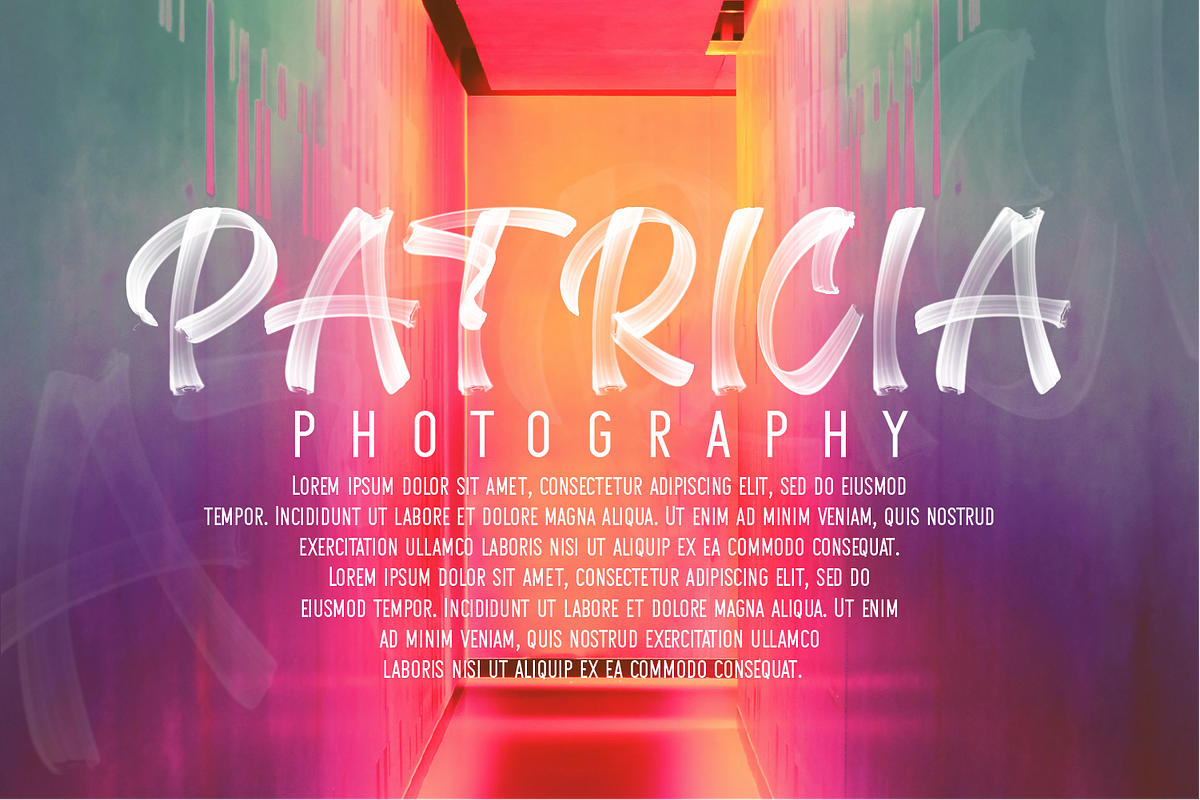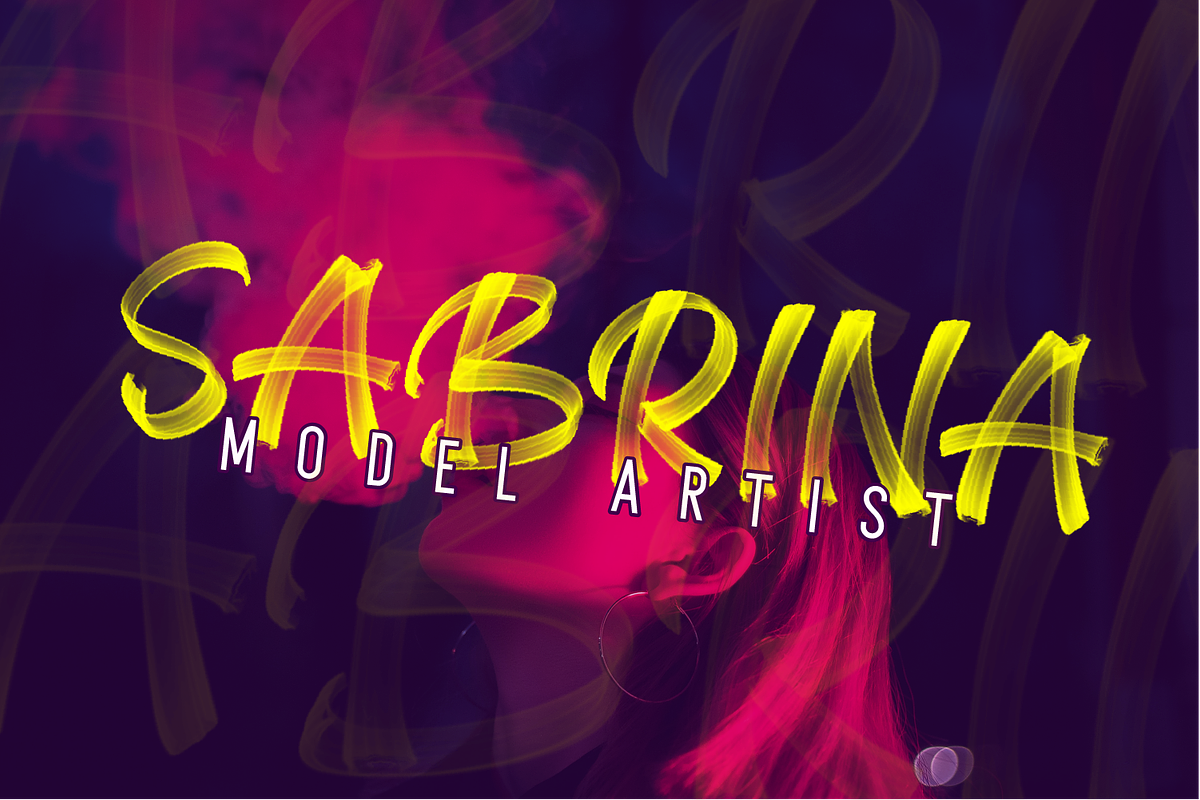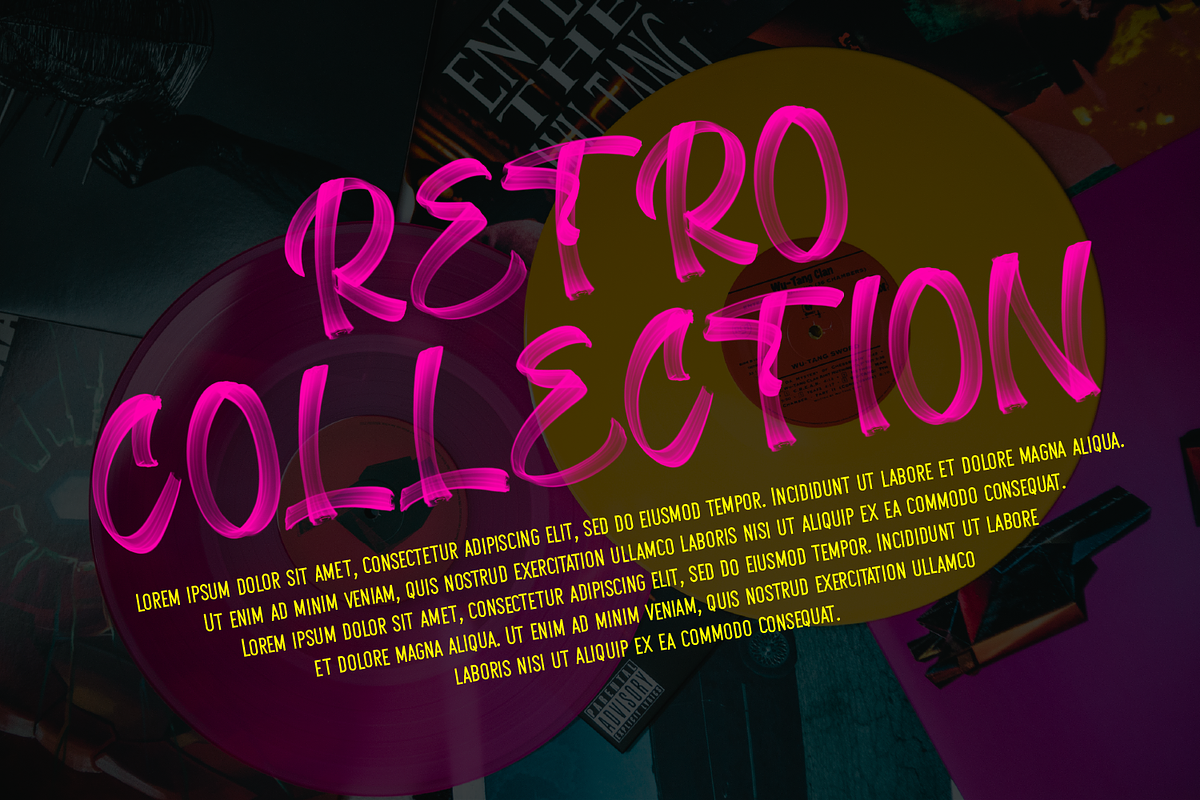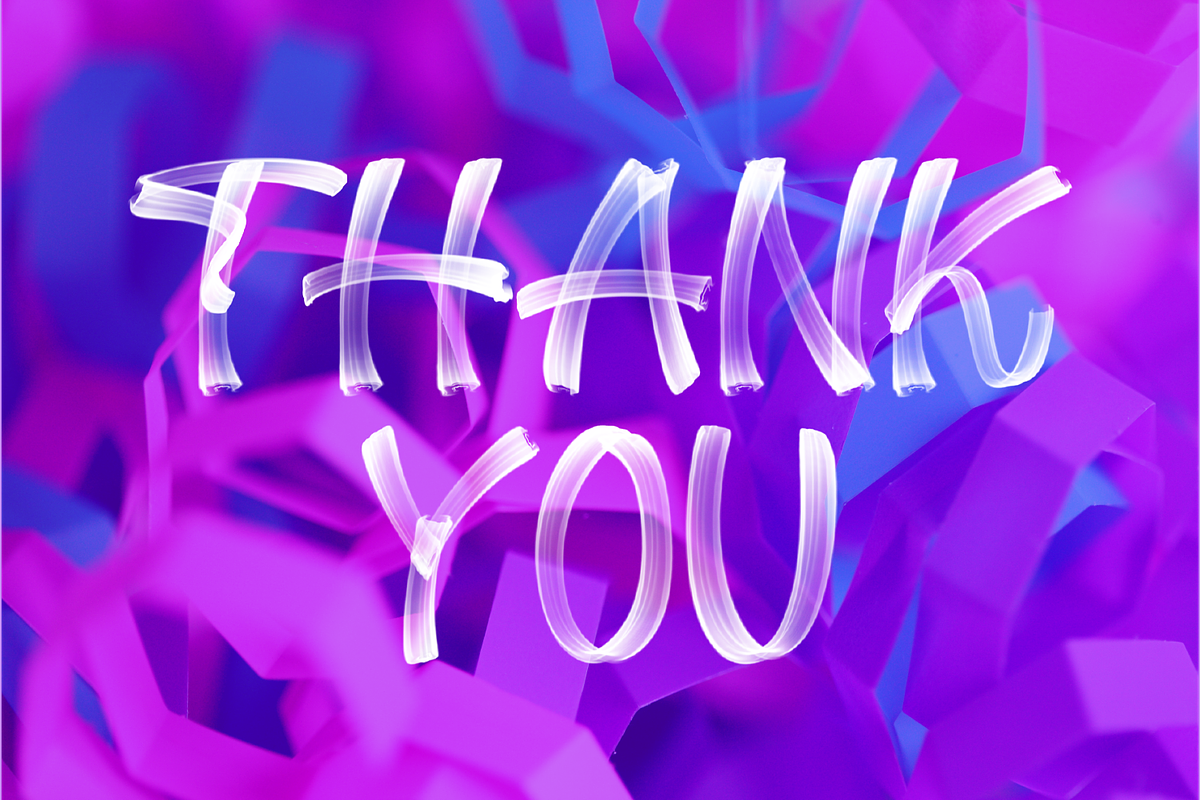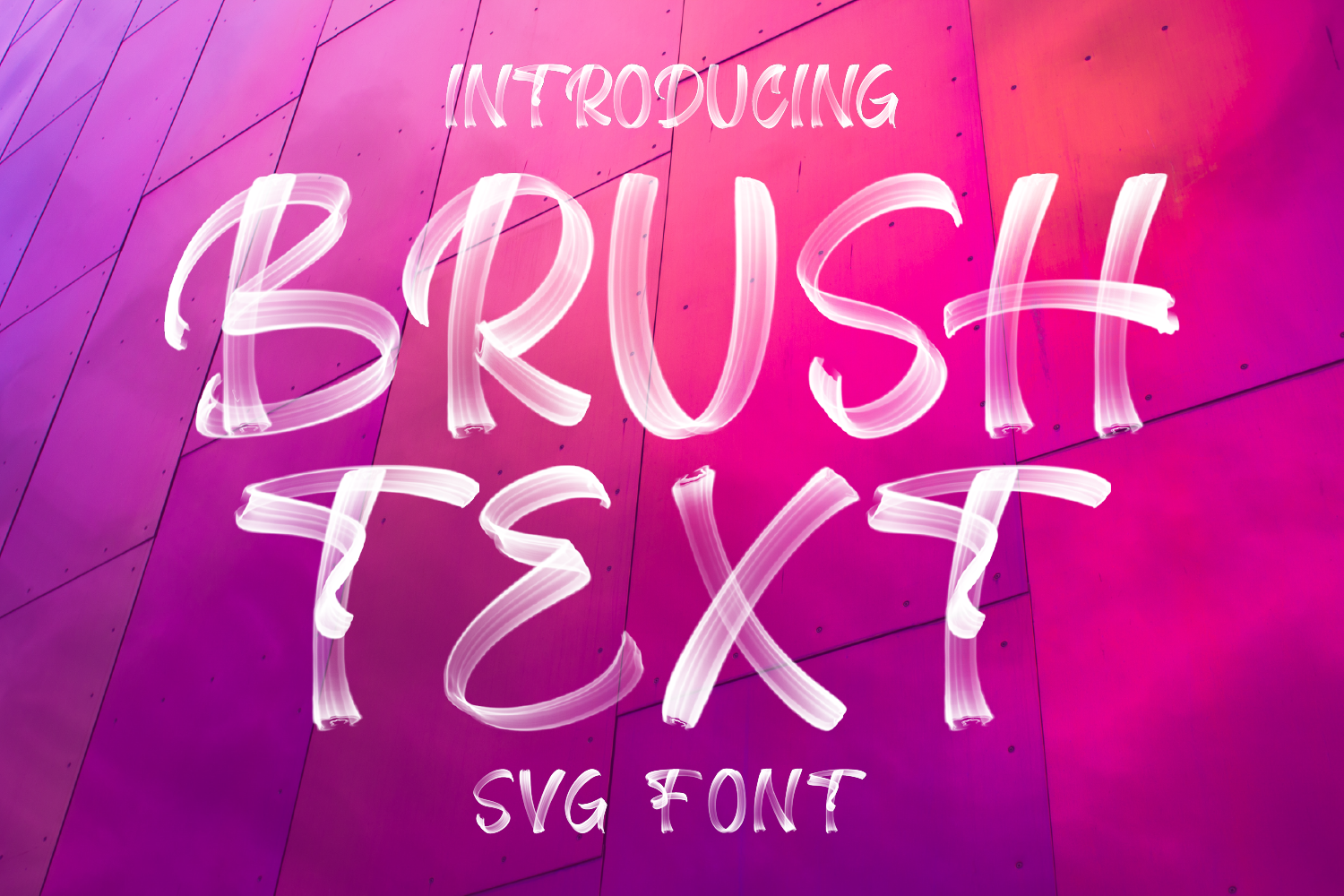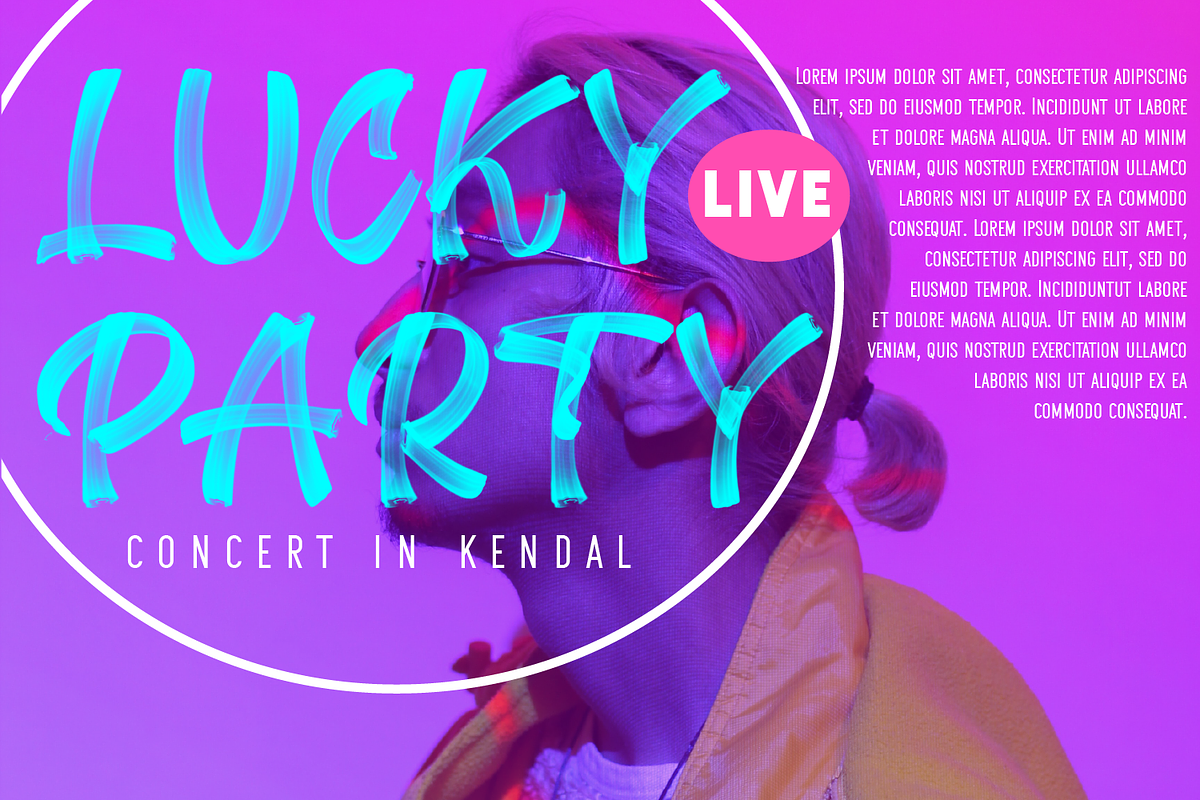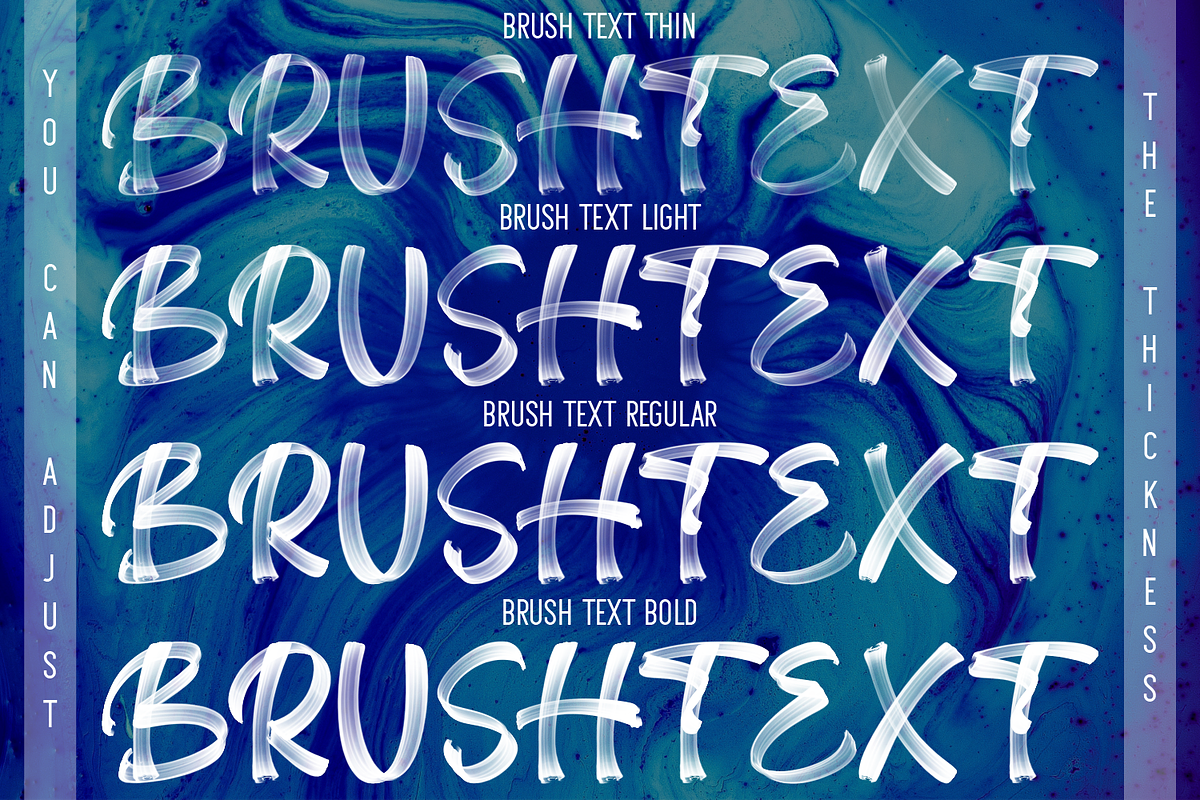
Brush Text SVG FONT
The Brush Text SVG FONT is a cool, attractive and modern handcrafted font, which has a very real brush-like feel. This font can be applied to your various projects such as logos, labels, packaging designs, posters, stickers and even apps and many more.